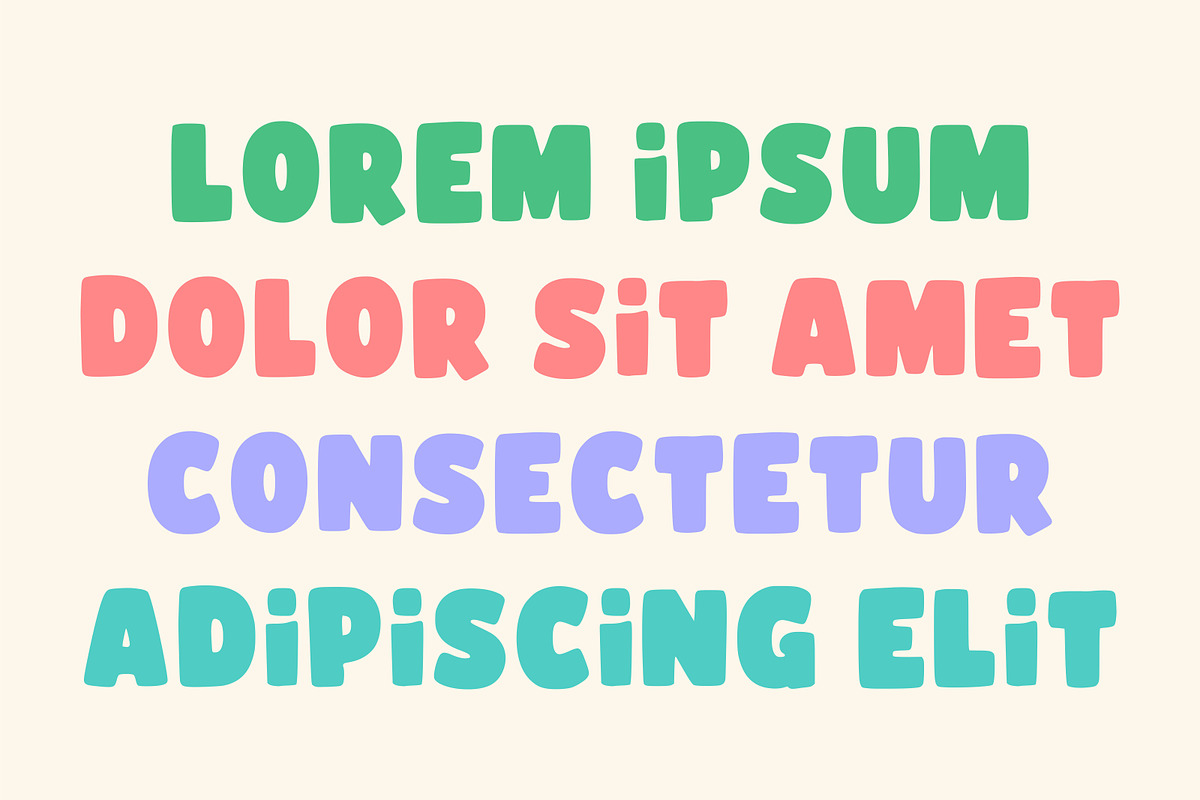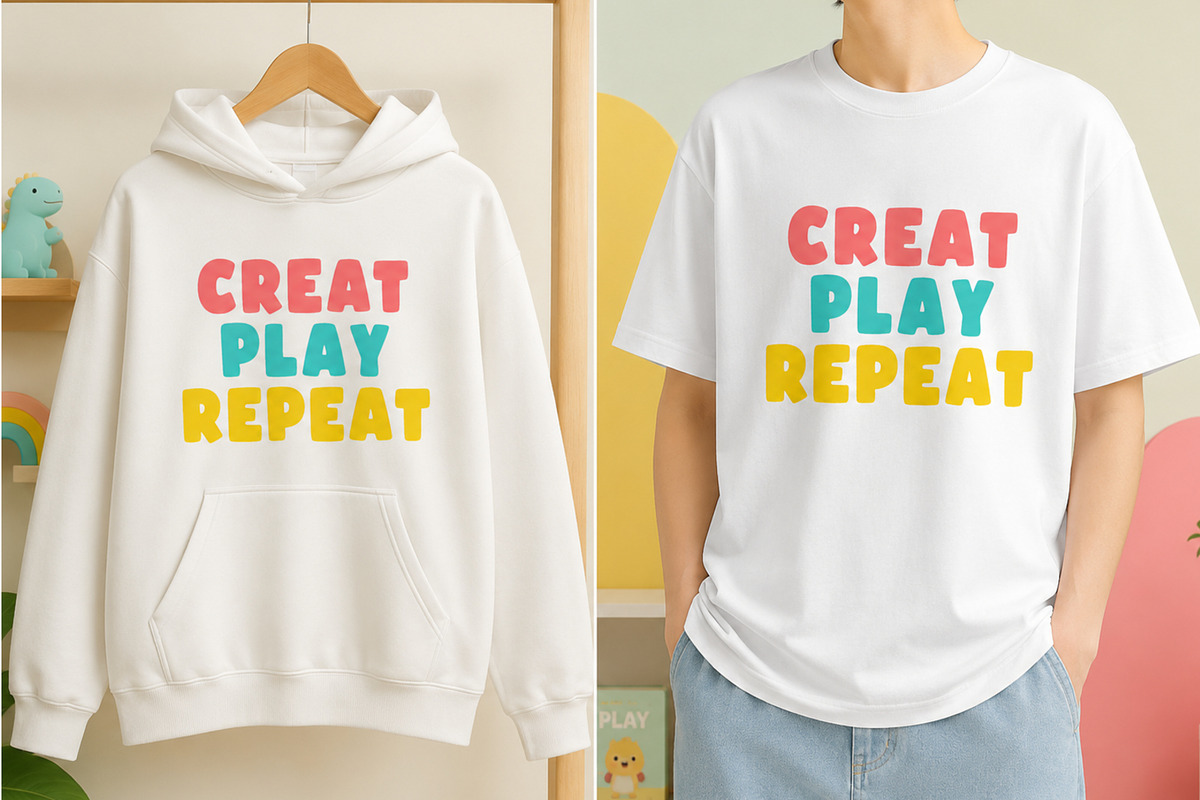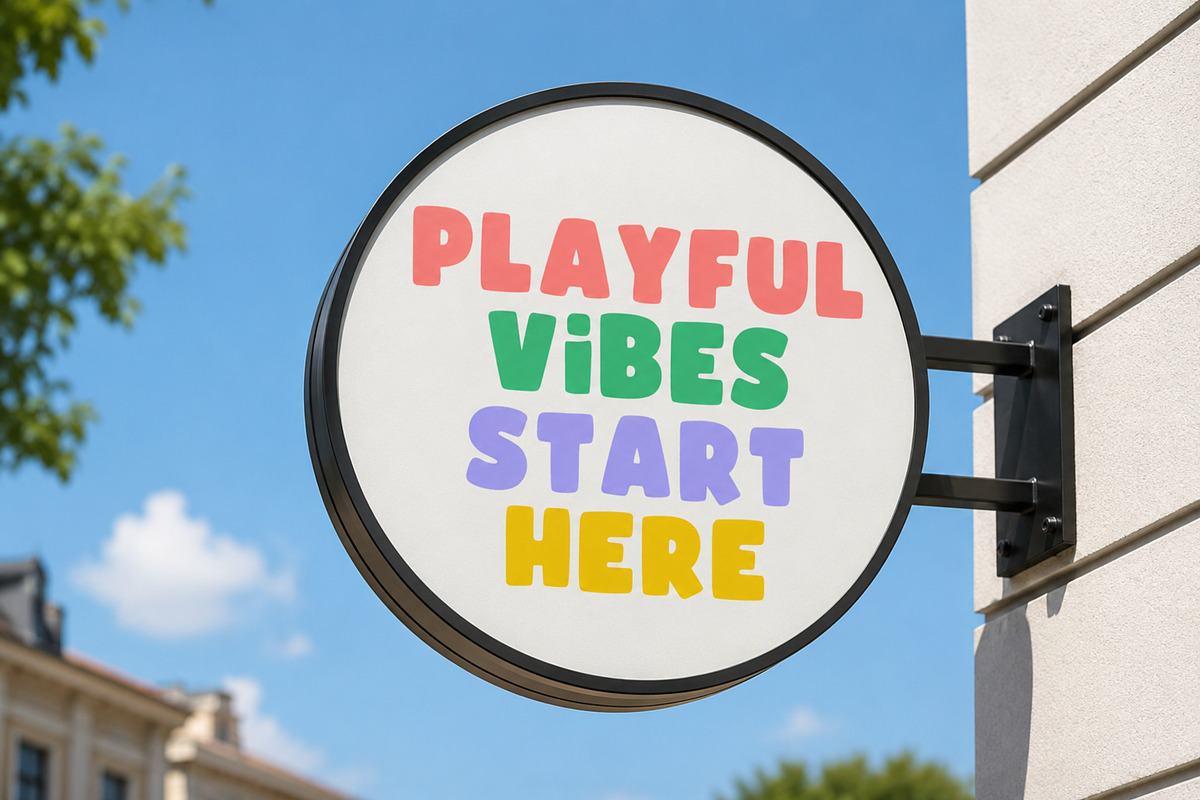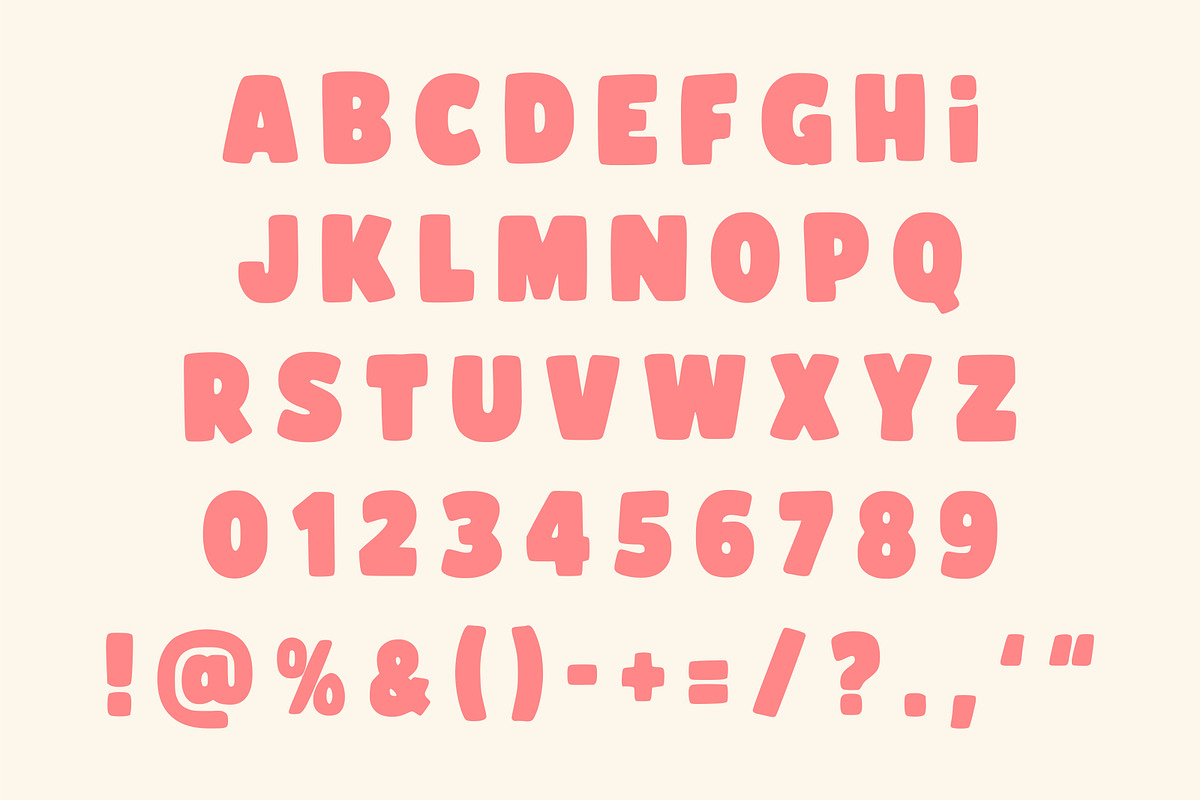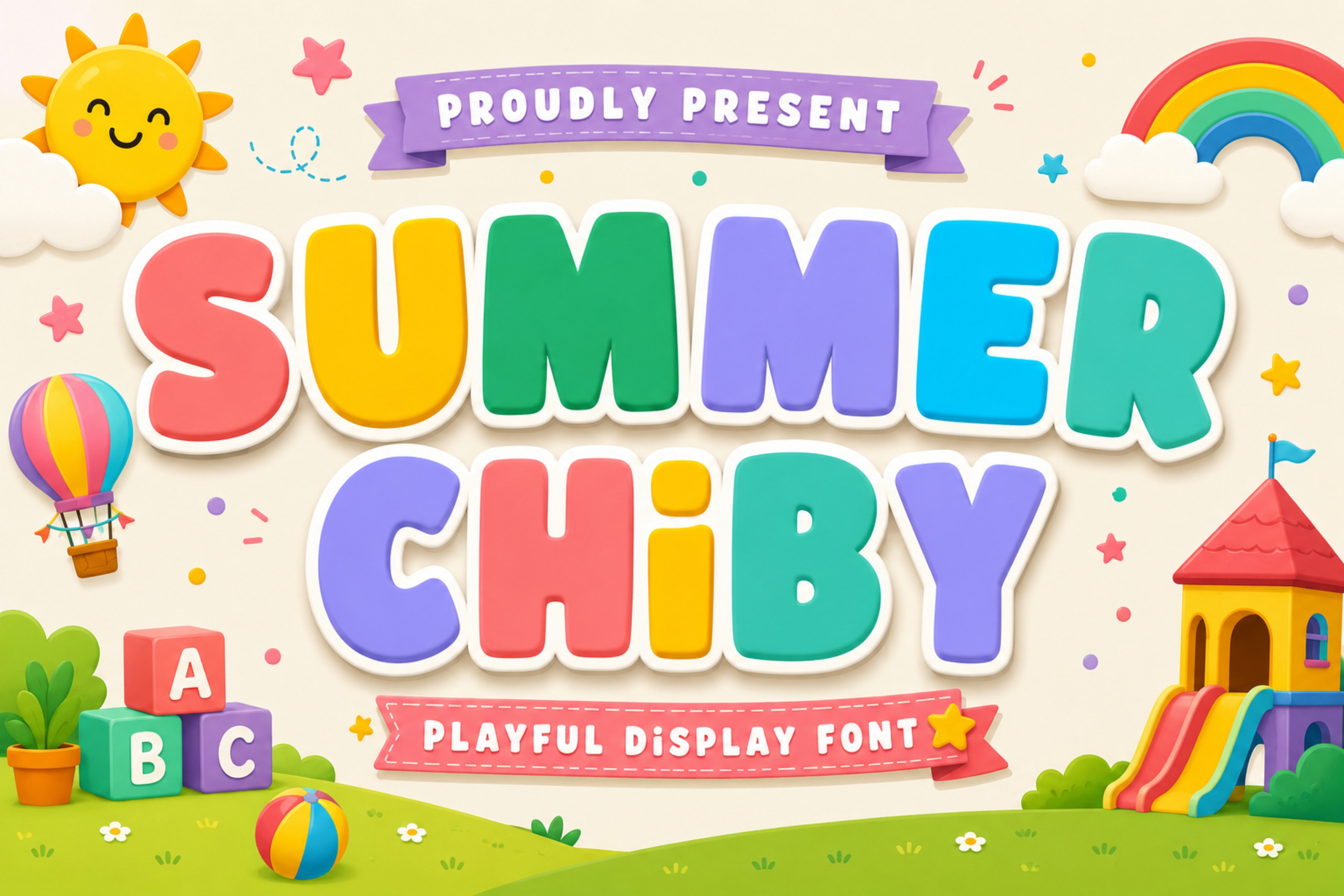
Summer Chiby - Playful Font
Summer Chiby is a fun and vibrant display font featuring bold, rounded letterforms with a soft, friendly appearance. Designed to bring happiness and energy to every project, this font is ideal for children’s products, summer party invitations, school materials, birthday decorations, toy packaging, stickers, t-shirts, logos, social media graphics, and printable crafts.
Kids Branding
Summer Designs
Birthday Invitations
School Projects
Preschool & Kindergarten Materials
T-Shirt Designs
Stickers
Posters
Logos
Packaging
YouTube Thumbnails
Social Media Posts
Cricut & Silhouette Crafts
Sublimation Projects